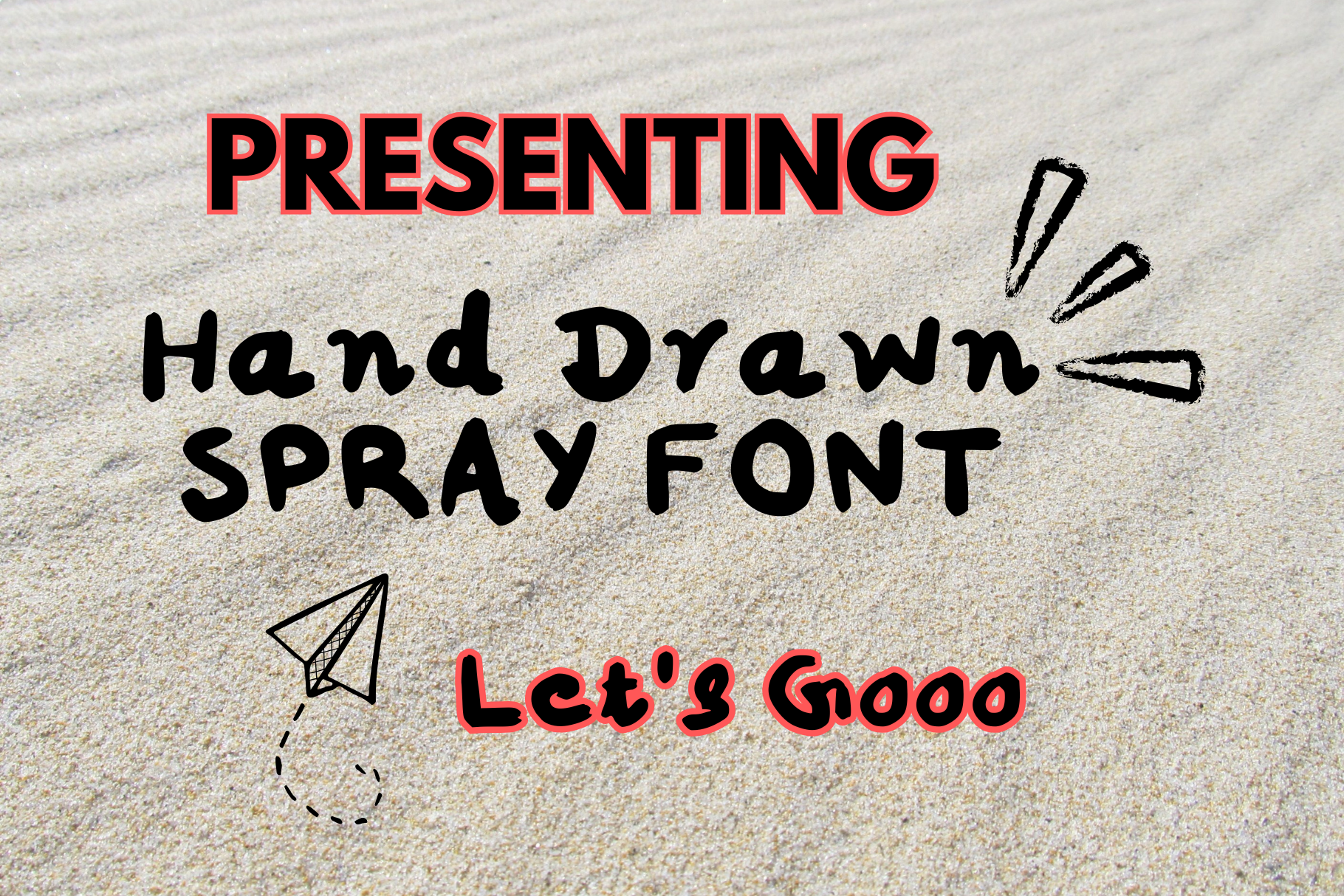
Handdrawn Spray Font
Introducing this playful handwritten font, perfect for adding a personal, creative touch to your designs! This font includes uppercase and lowercase letters, numbers, and essential punctuation marks, giving you flexibility for a wide range of projects. Its bold, slightly uneven strokes bring a fun, quirky vibe, ideal for digital prints, posters, social media graphics, and more. Each character is uniquely crafted, giving your work an authentic hand-drawn feel. Download this digital font and start enhancing your creative projects today!